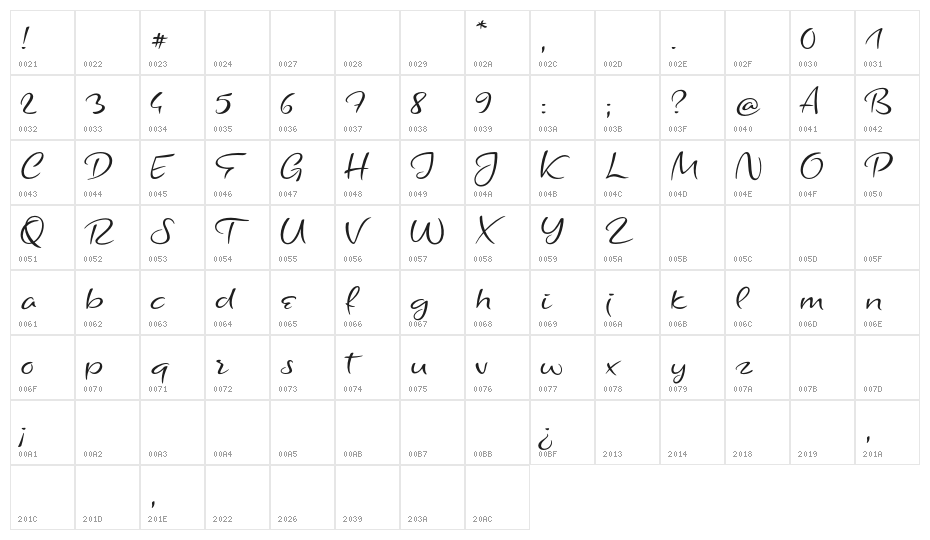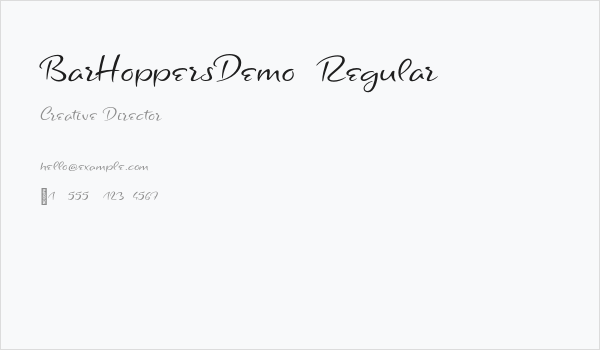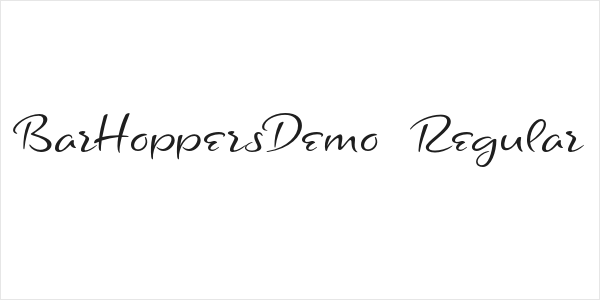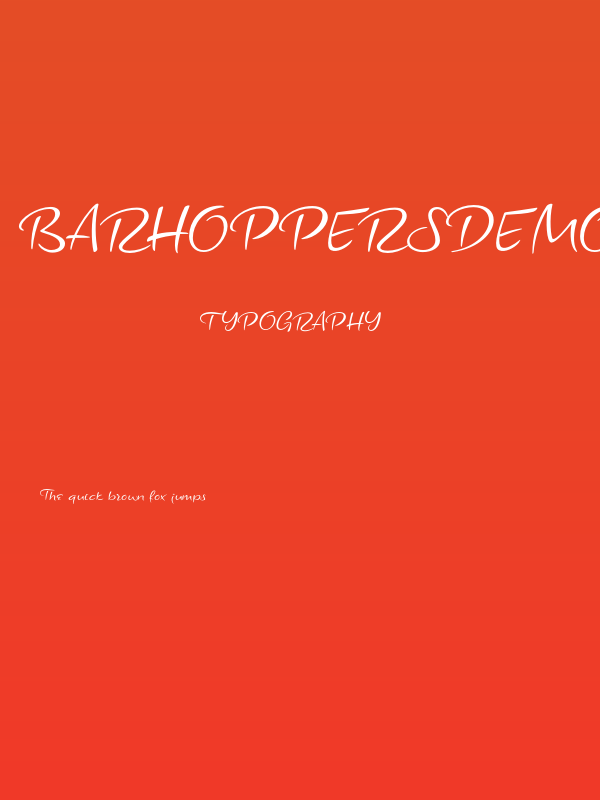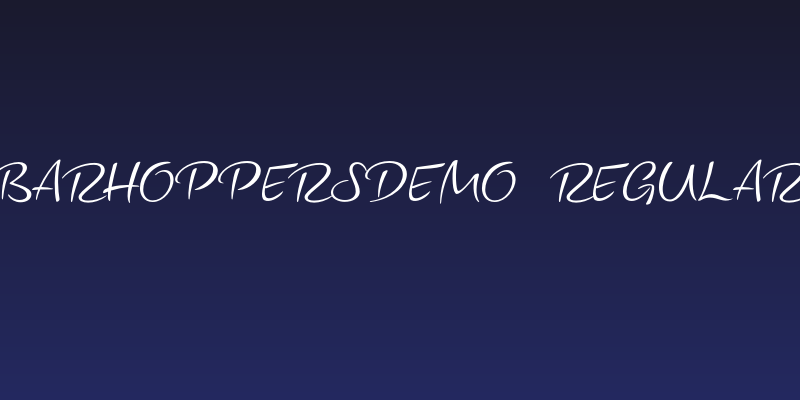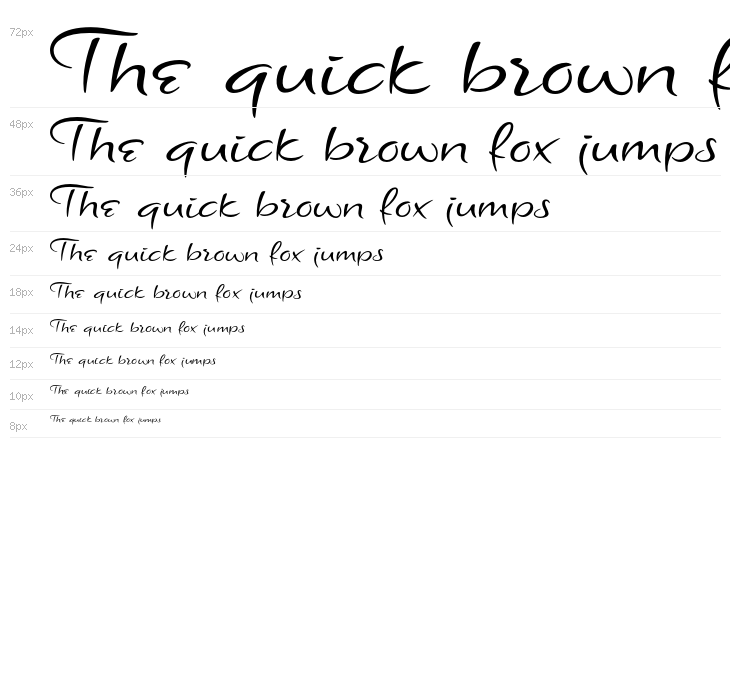
BarHoppersDemo-Regular Font
BarHoppersDemo-Regular Description
This font features a lively and flowing script style, characterized by its elegant and smooth curves. The letters are interconnected, giving it a handwritten appearance that exudes a sense of personal touch and creativity. The uppercase letters are slightly more formal, while the lowercase letters maintain a casual and approachable feel. The numerals are consistent with the overall style, ensuring readability while maintaining the artistic flair. Special characters are included, though some are missing, which may limit its use in certain contexts. This font is ideal for projects that require a personal and artistic touch.
| Proposed Projects | Ideal for wedding invitations, greeting cards, personal branding, and artistic projects. |